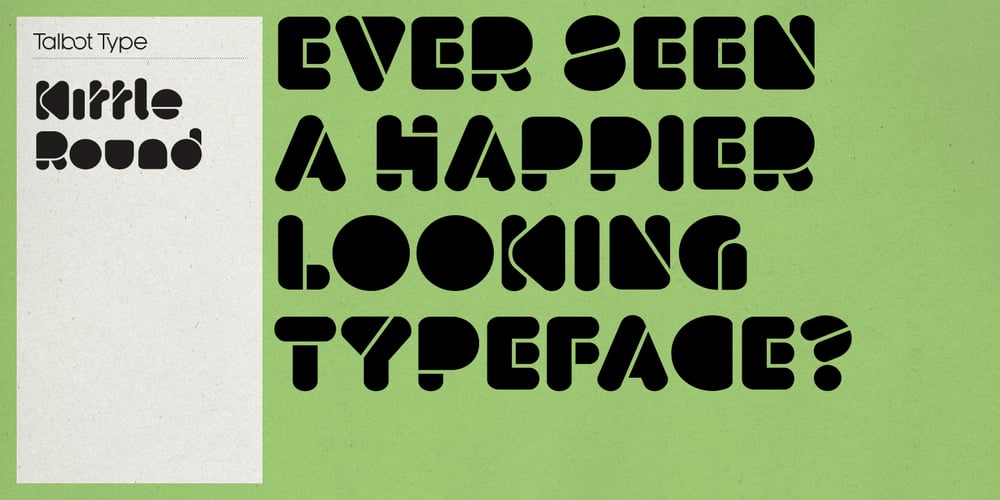
Kittle Round Font Family was designed by Adrian Talbot and published by Talbot Type. Kittle Round contains 2 styles and family package options. Kittle Round is a robust display font, with a strong, pared down look based on bold geometric forms. Loaded with personality, Kittle Round features a full upper and lower case character set and an extended set of accented characters for Central European languages. It is also available as Kittle Rough, with a time-worn look.